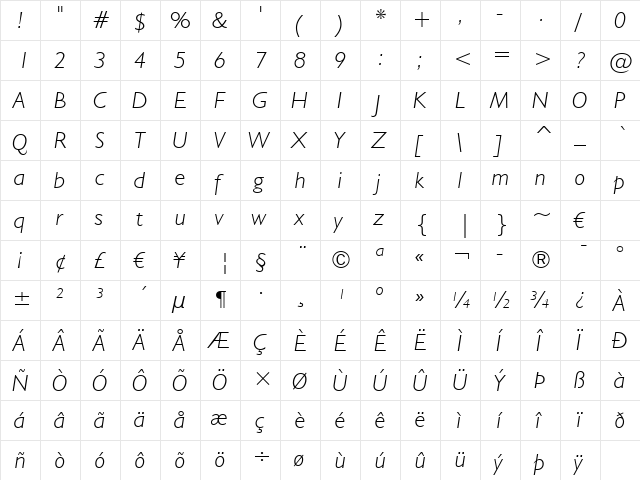
Humanst521 Lt BT Light Italic
Design Context for Humanst521 Lt BT Typeface
Humanst521 Lt BT takes a measured approach to typography — its balanced proportions and neutral character make it a reliable workhorse for both digital and print work. The slanted form adds forward momentum and visual energy. Its slender proportions lend an understated elegance to any composition.